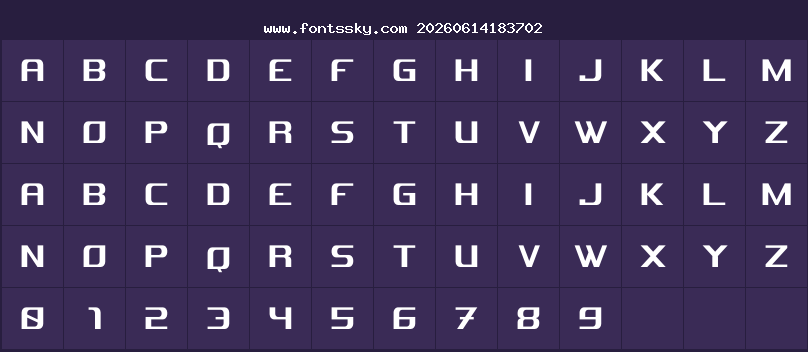
Astron Light Preview
• Font Name: Astron Light
• Full Font Name: Astron Light
About Astron Light.otf
Astron Light.otf is a modern, elegant sans-serif font designed for ultimate readability and visual harmony. Perfect for branding, headlines, web design, and print materials.